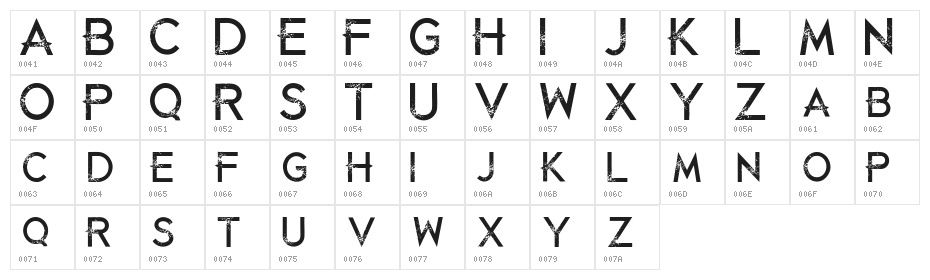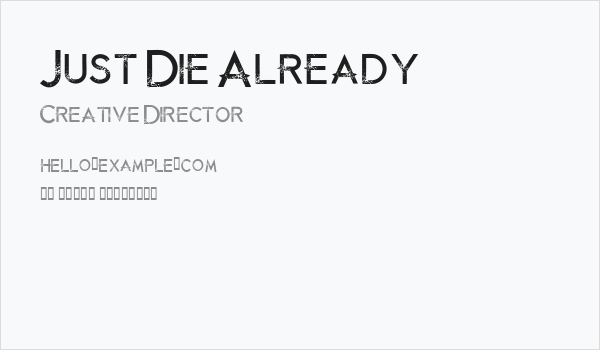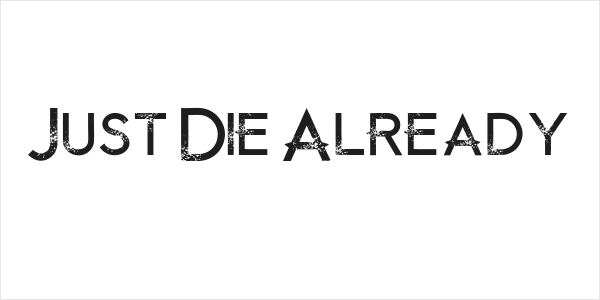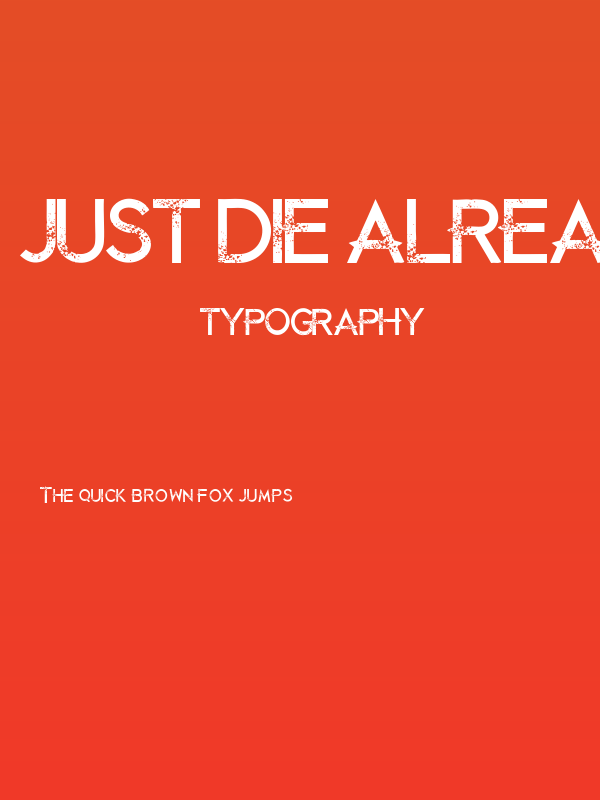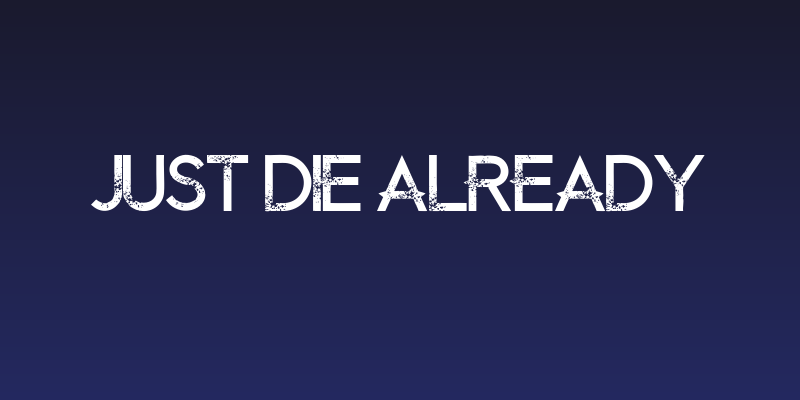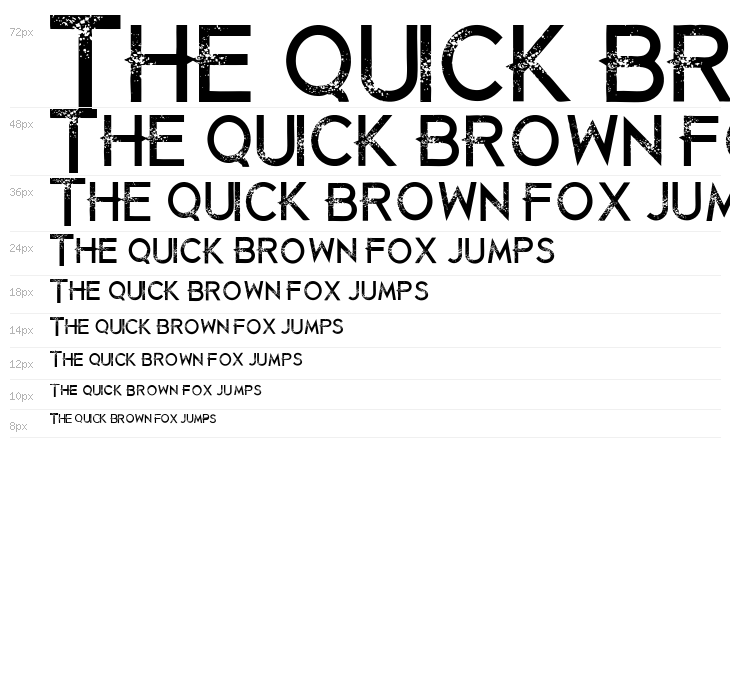
Just Die Already Font
Just Die Already Description
This font features a bold, distressed style with a textured appearance that gives it a rugged, worn-out look. The uppercase letters are uniform in height and width, creating a consistent and balanced appearance. The distressed effect is randomly distributed across the characters, adding a unique and edgy feel. The font maintains a modern and industrial aesthetic, making it suitable for projects that require a bold statement. Its clear and legible design ensures readability while the distressed texture adds character and depth.
| Overall Style | Modern, Industrial |
| Proposed Projects | Ideal for posters, album covers, branding for edgy or industrial-themed products, and any project needing a bold, textured statement. |